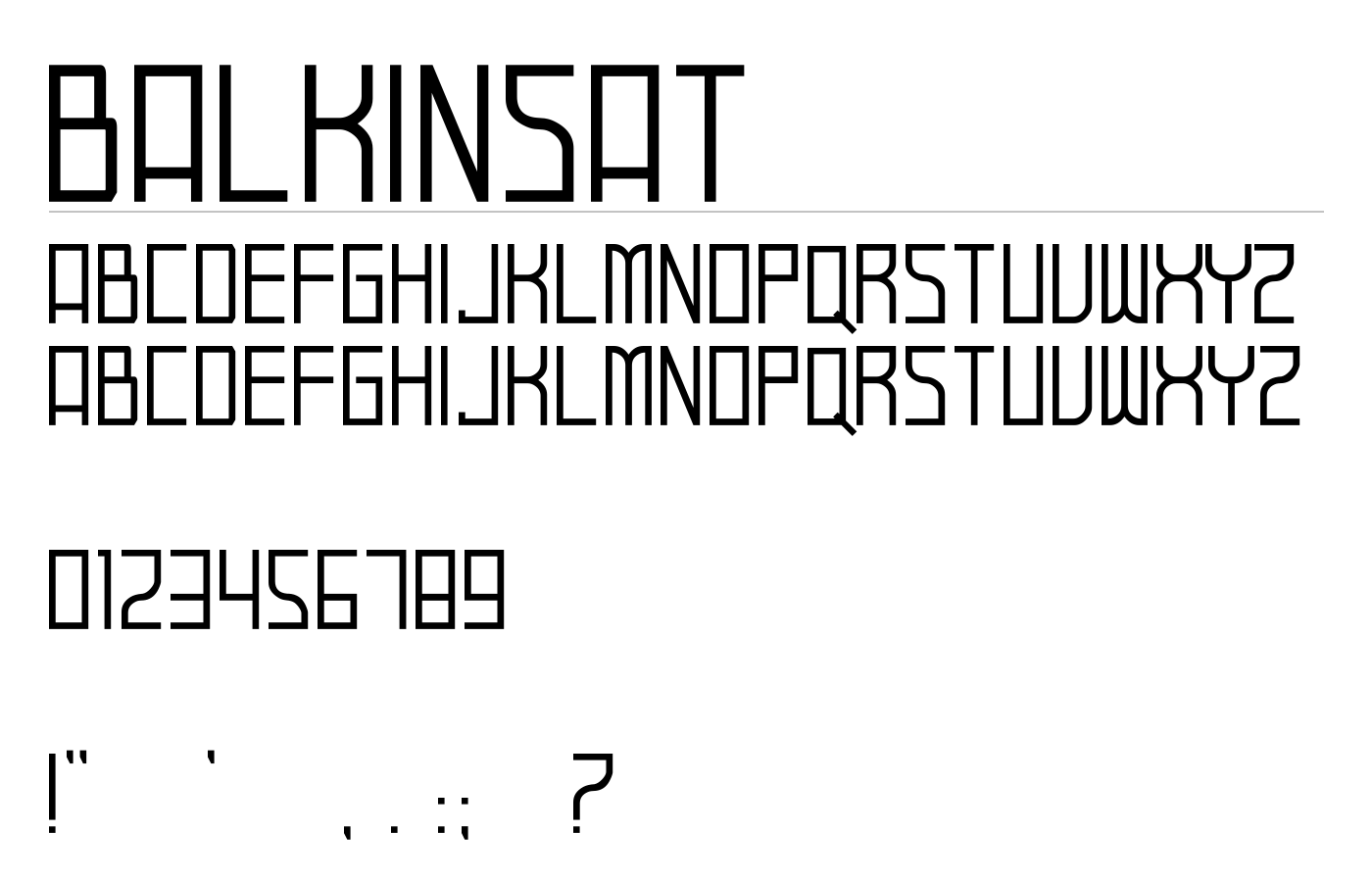
Balkinsat is a modern, narrow sans serif font with a sleek, geometric structure and uniform stroke weight, giving it a clean and technical appearance. Its tall, condensed letterforms and minimal contrast make it ideal for futuristic or tech-inspired branding, headlines, and digital interfaces where clarity and a contemporary vibe are key. This font works well in designs that need a distinctive, modern edge with a touch of elegance.
Balkinsat Font